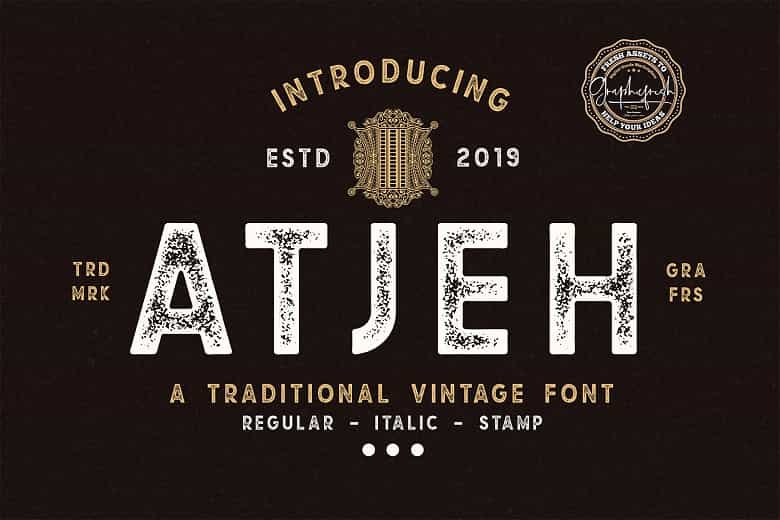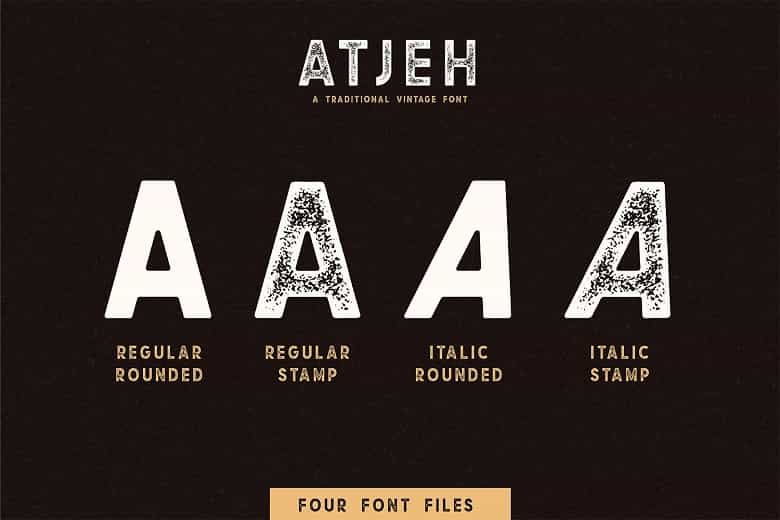
Atjeh Font
Atjeh is another vintage sans-serif font from the Graphicfresh that has the retro touch to it. Of these there is a Regular and Textured version, as well as an Italic version of both styles. It is suitable for logos, name card, magazine layouts, invitations, headers or even large scale artwork.